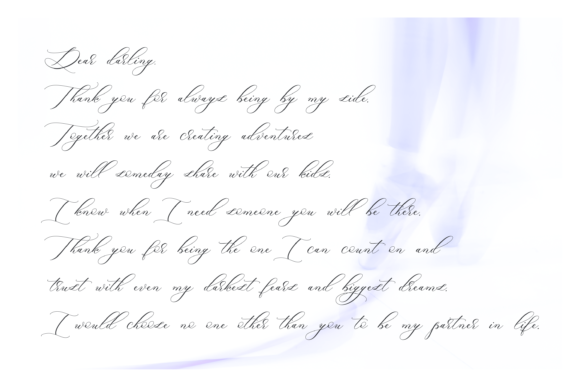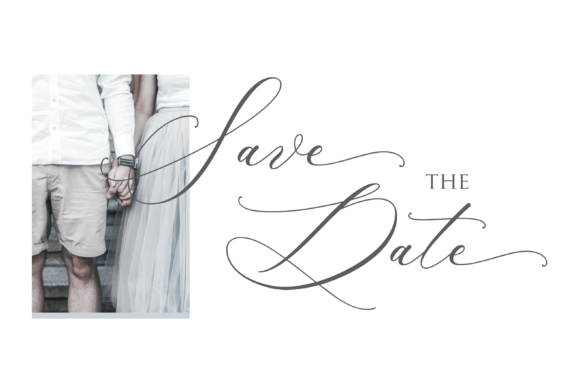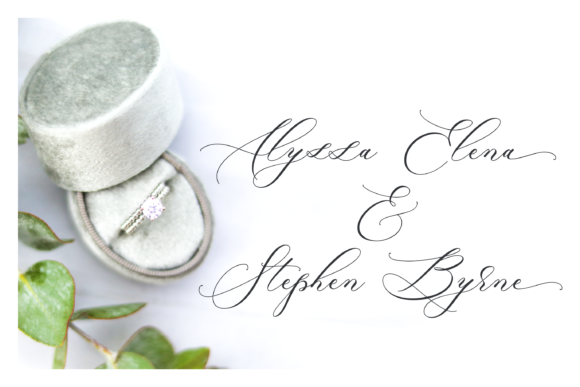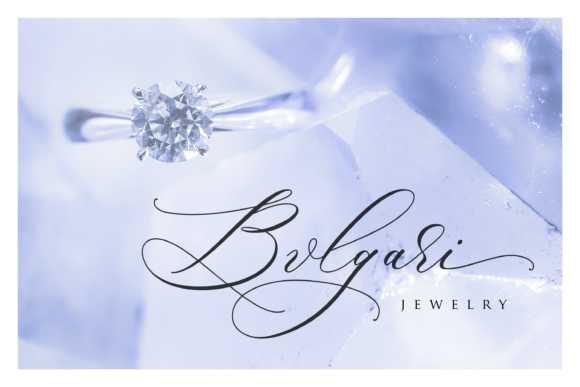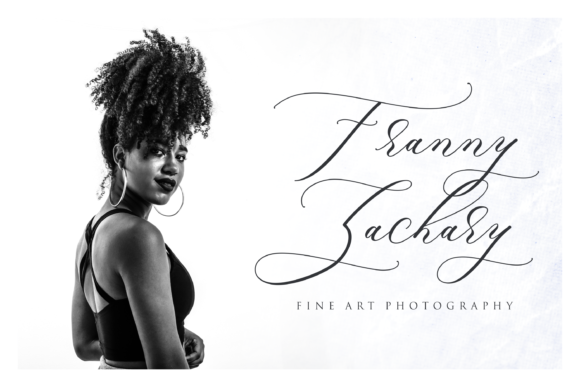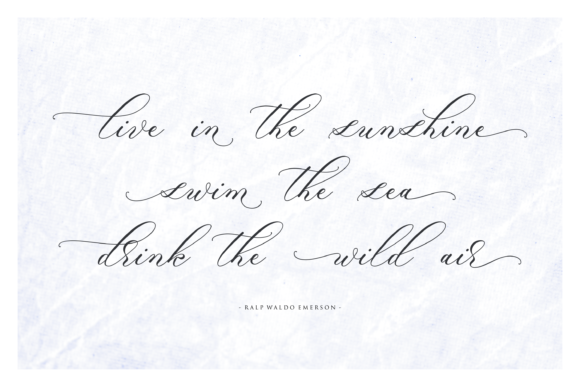
Introduction to Raja Ampat Font
The Raja Ampat is a modern calligraphy font with lovely movements.
It has an elegant and feminine feel which is perfect for wedding invitations, cards, quotes, and much more .